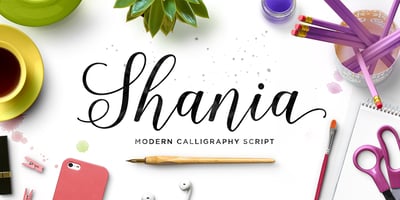
Shania Script
Shania Script font
Shania Script Font Family was designed by Seniors Studio and published by Seniors Studio. Shania Script contains 1 styles and family package options. Shania Script is a modern calligraphy typeface with a free flowing and moving baseline. It has a casual, yet elegant touch. It can be used for various purposes such as logos, wedding invitations, headings, t-shirts, letterheads, signage, labels, news, posters, badges etc. Features 370+ glyphs and 136 alternate characters, including initial and terminal letters, alternates, ligatures and multiple language support.To enable the OpenType Stylistic alternates, you need a program that supports OpenType features such as Adobe Illustrator CS, Adobe Indesign & CorelDraw X6-X7, Microsoft Word 2010 or later versions. There are additional ways to access alternates/swashes, using Character Map (Windows), Nexus Font (Windows), Font Book (Mac) or a software program such as PopChar (for Windows and Mac).